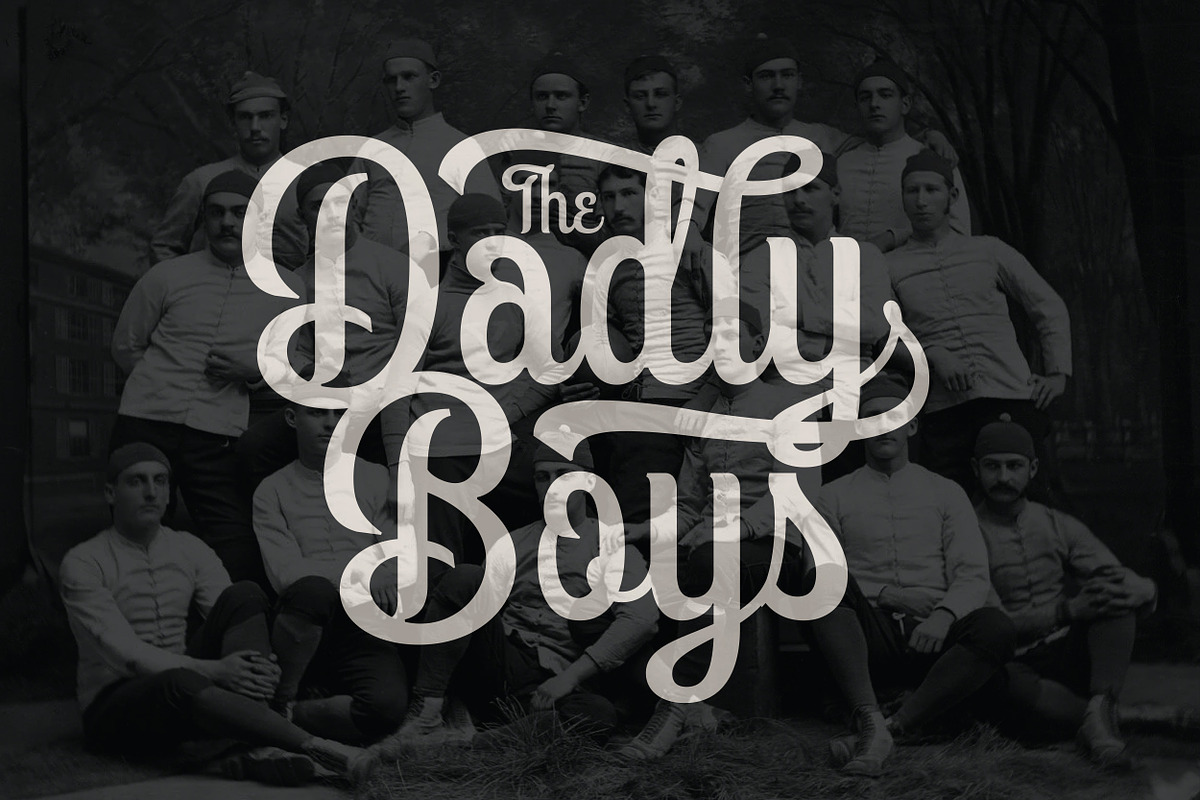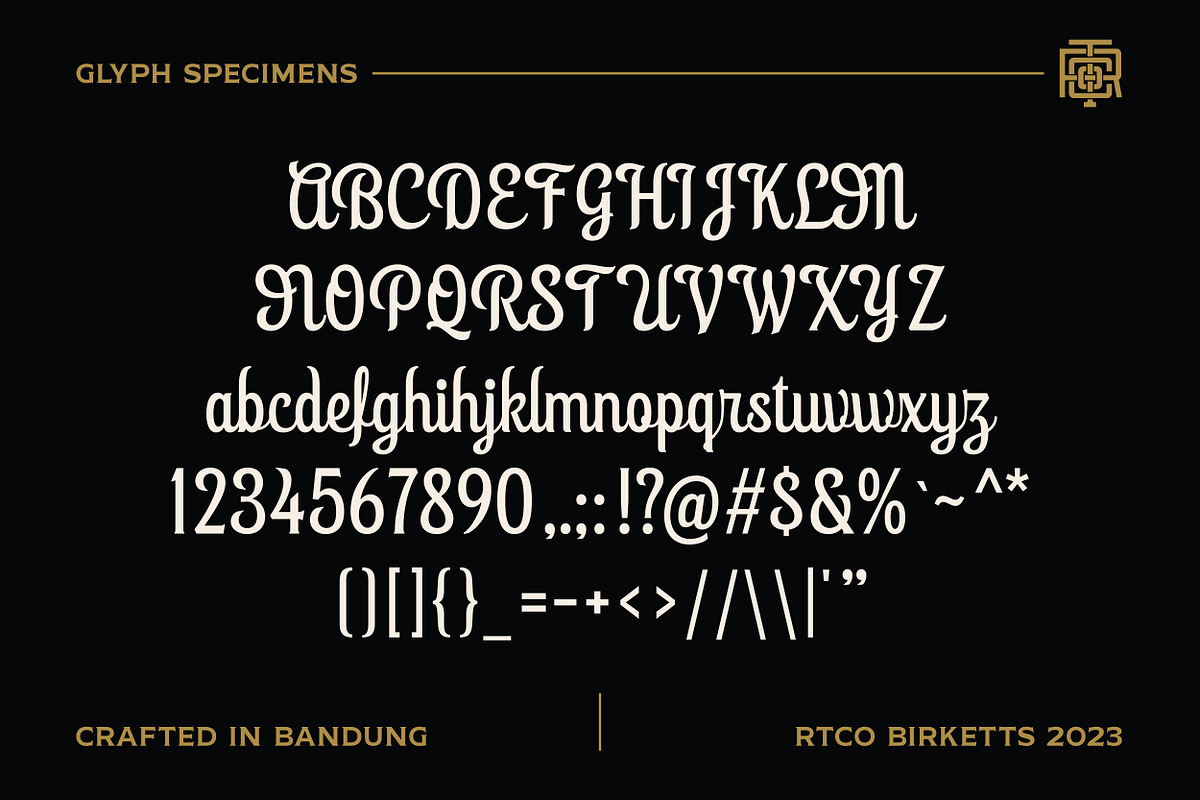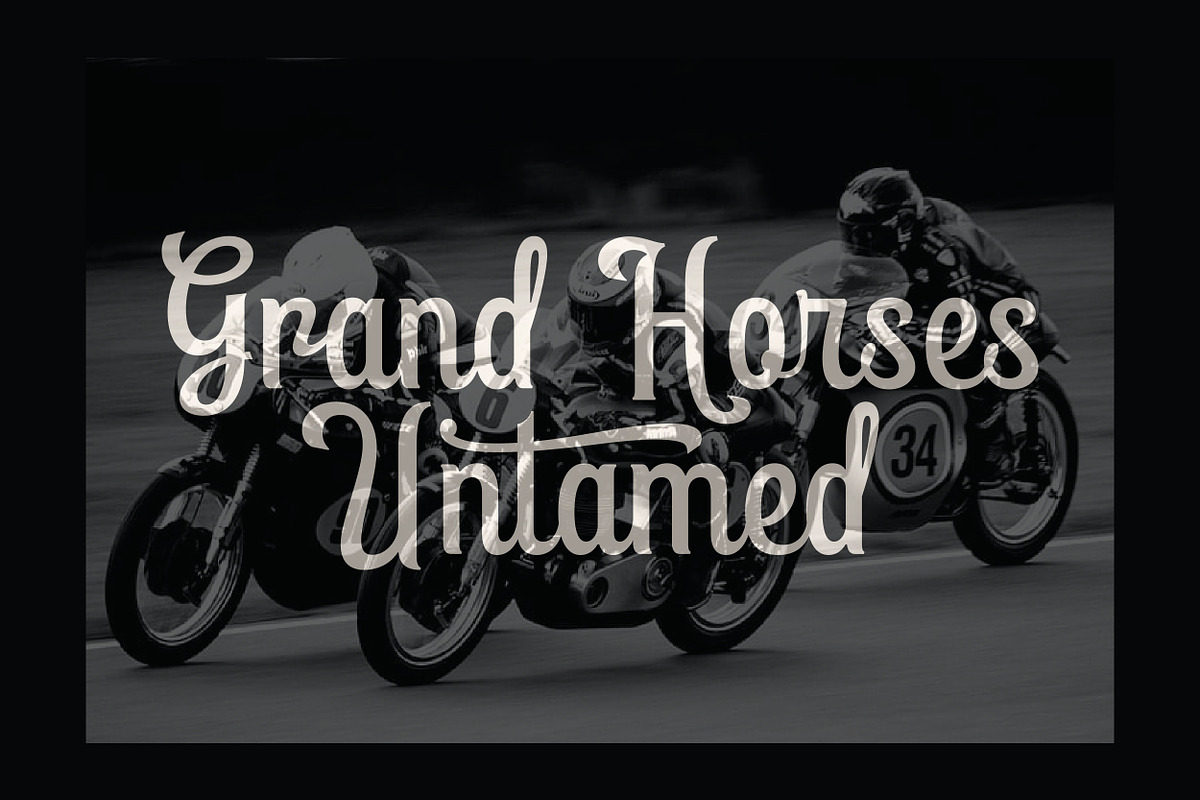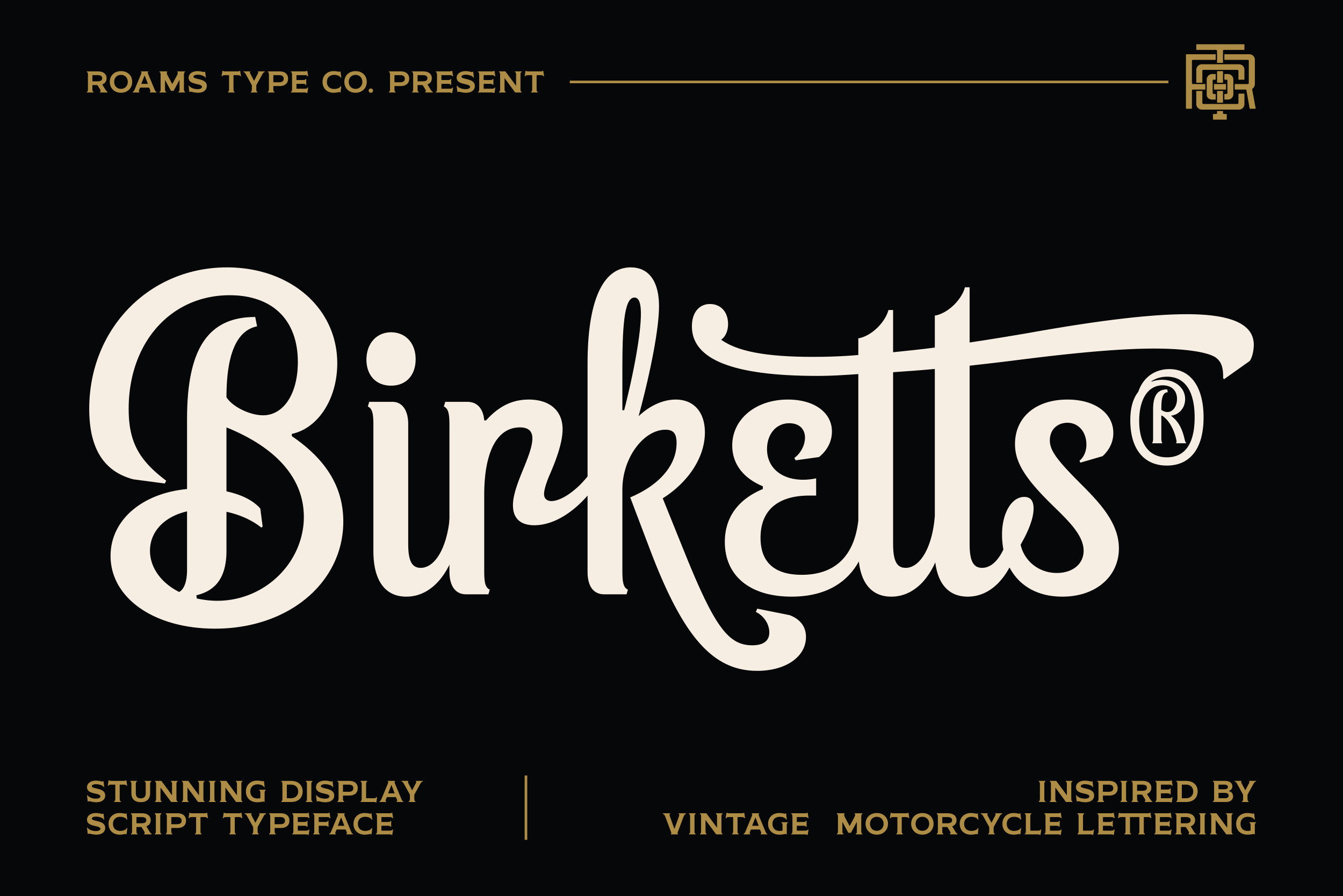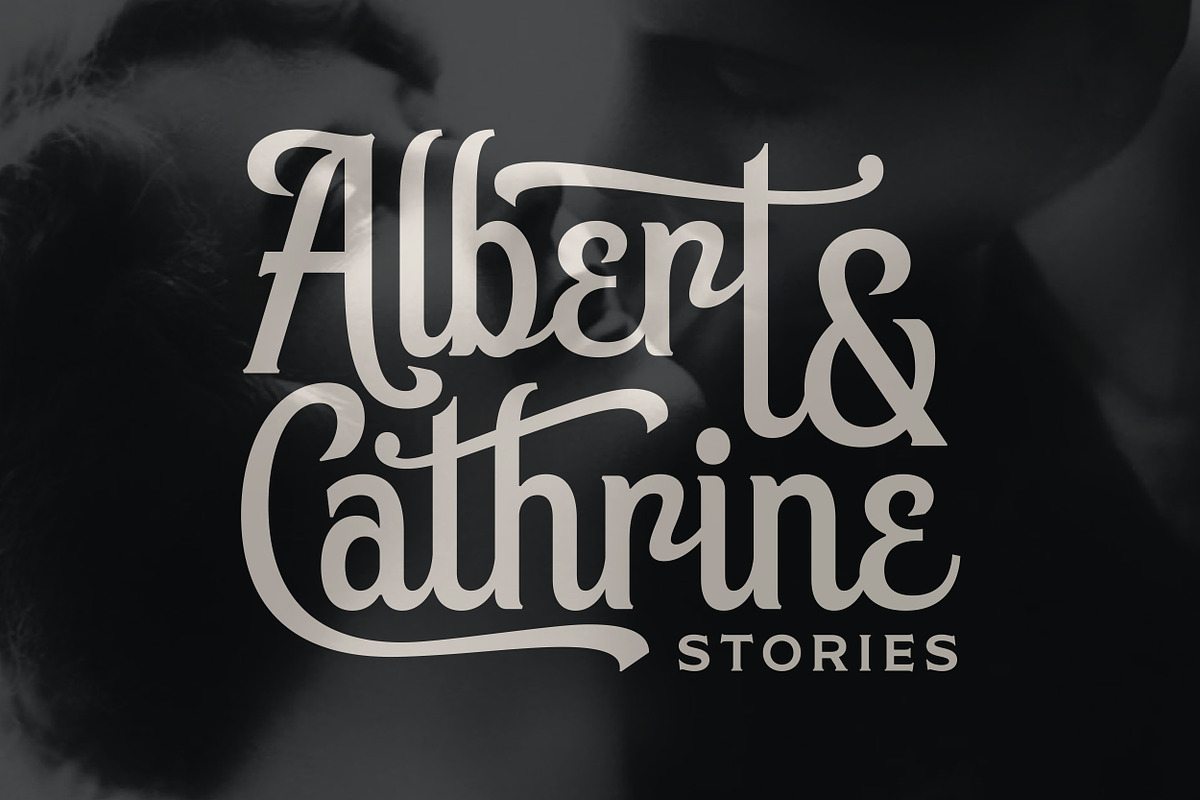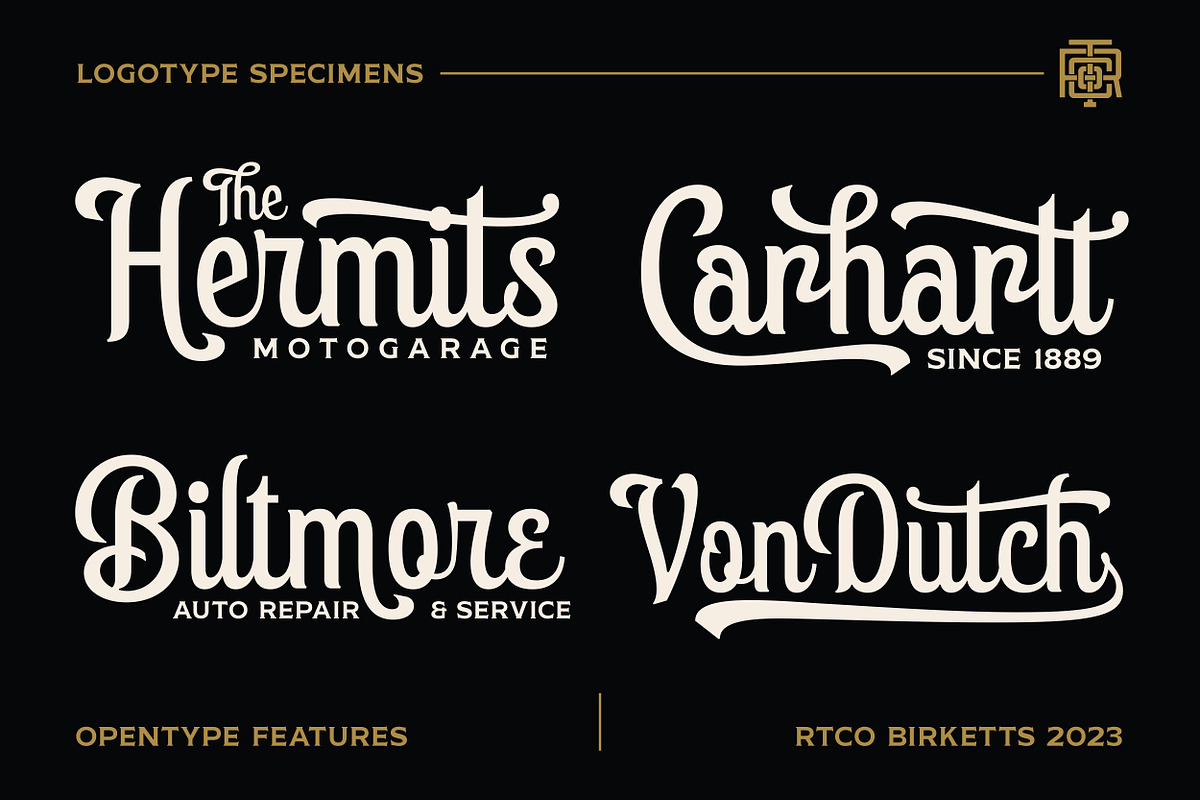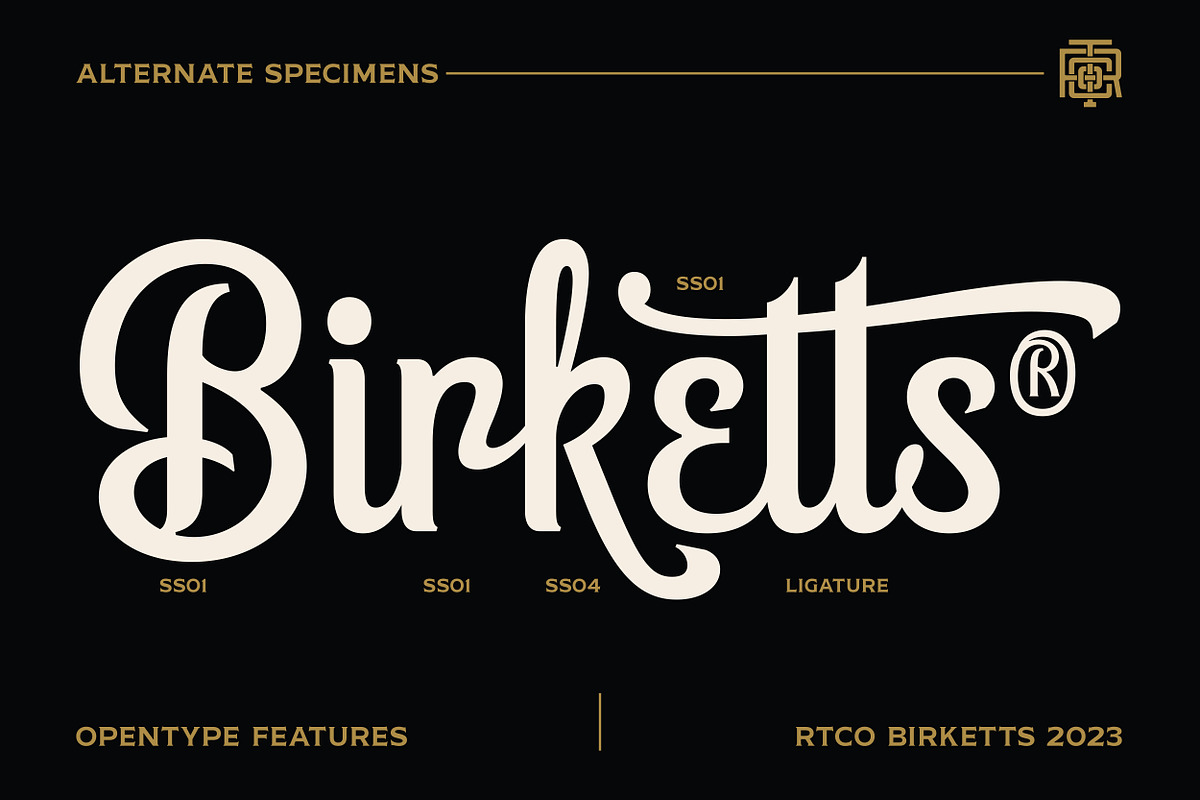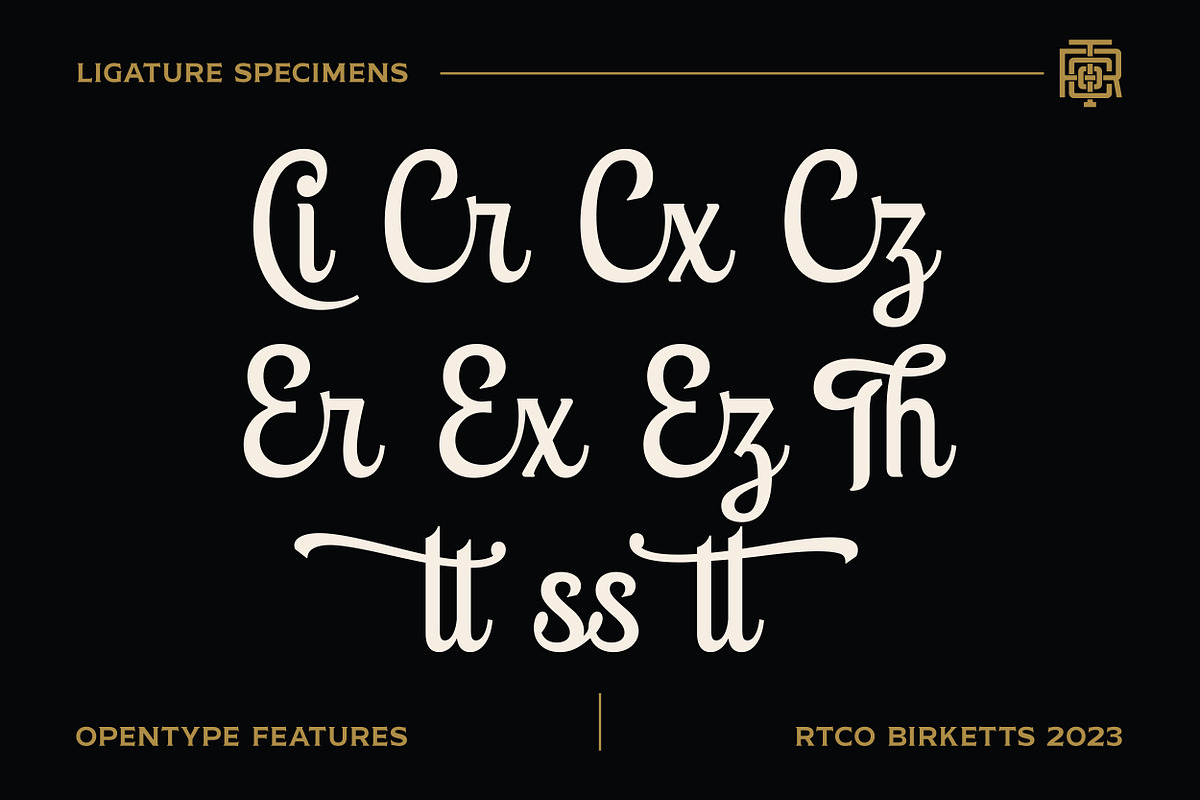
Birketts - Classy Motorcycle Font
RTCO BirkettsFont
RTCO Birketts Font made based on the concept of vintage style graphic design, inspired by the stunning lettering vintage motorcycle logotype.
This font is suitable for graphic designs such as logotypes, merchandise, printed stickers, and other branding needs.